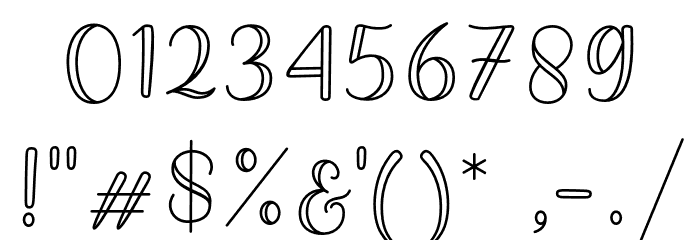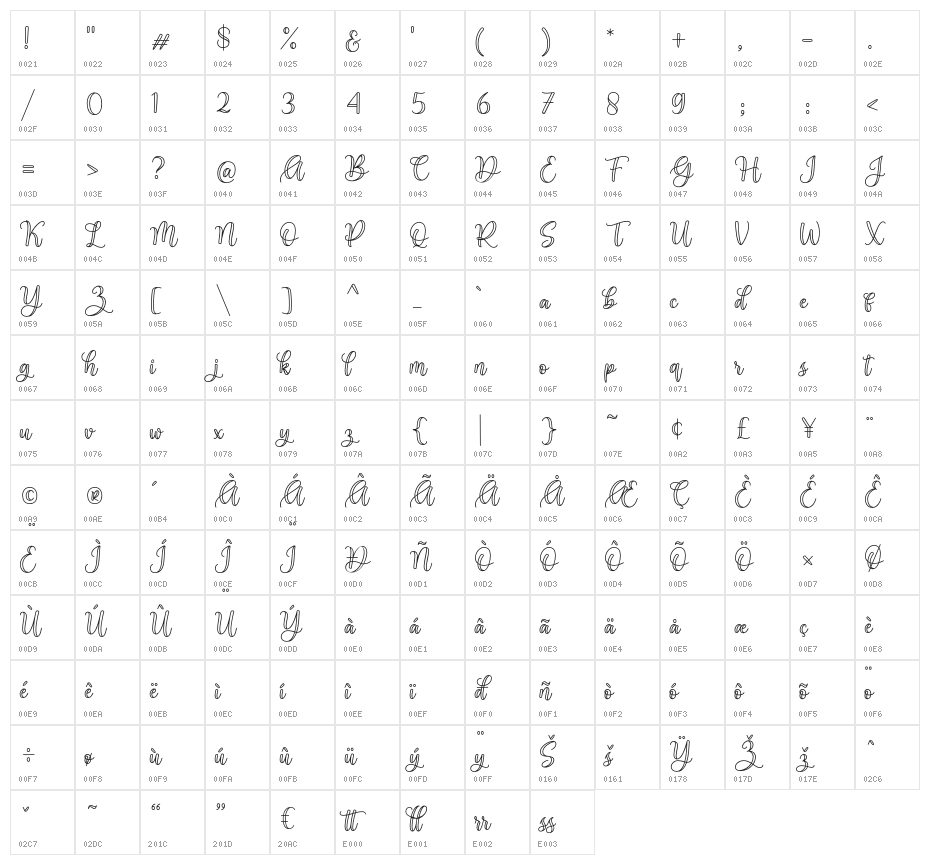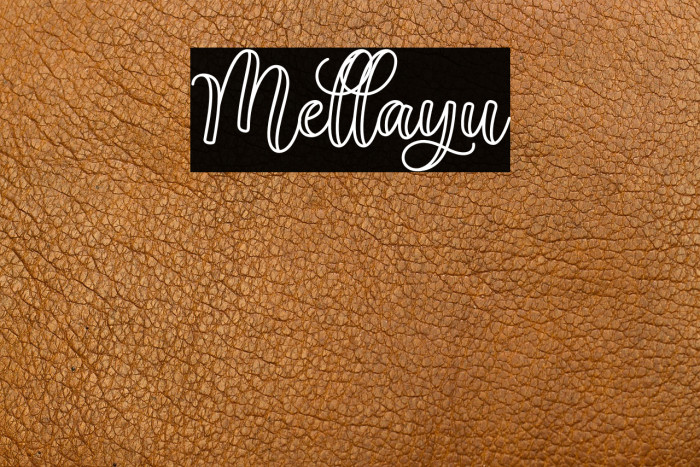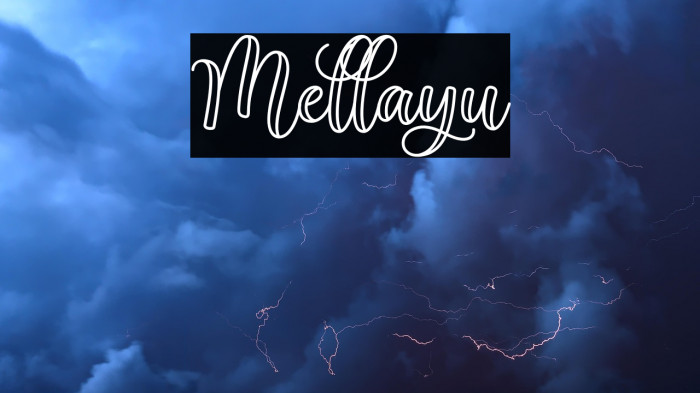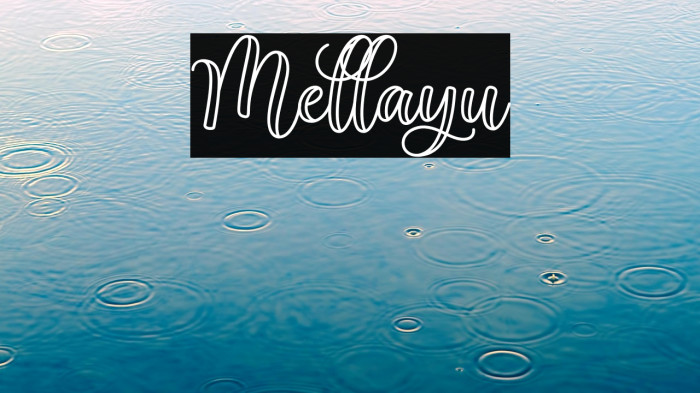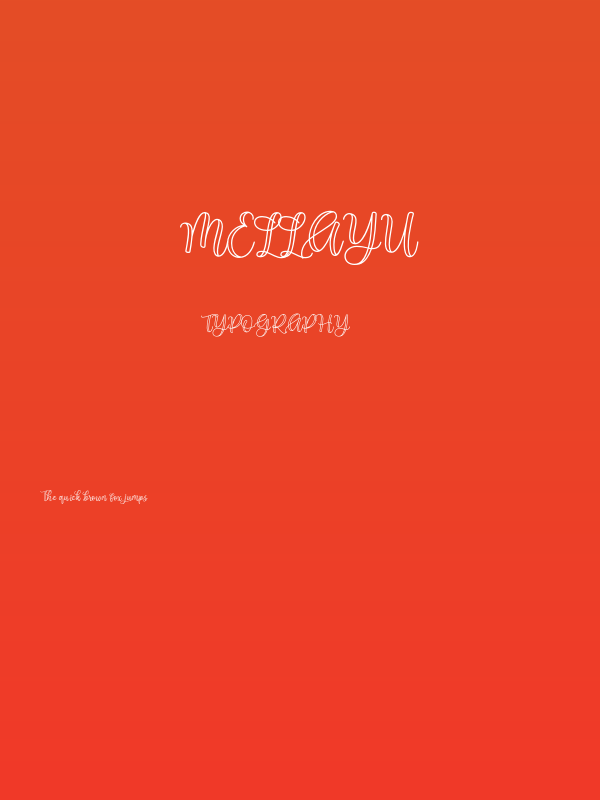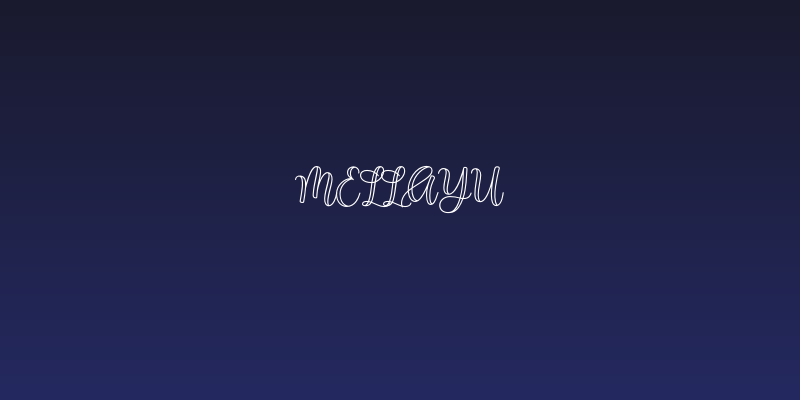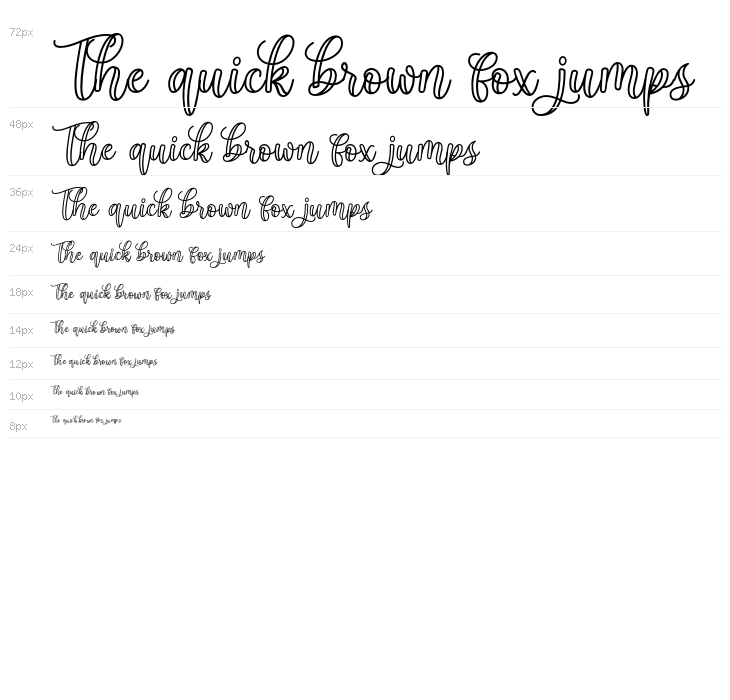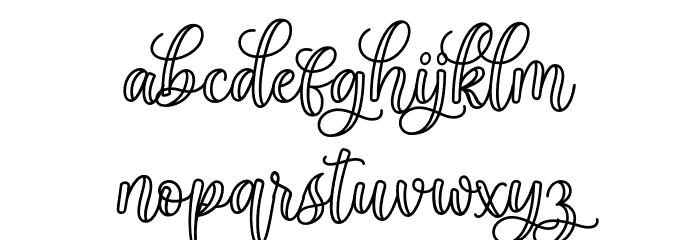
Mellayu Font
Mellayu Description
This font features an elegant and flowing script style, characterized by its smooth, interconnected strokes that create a sense of fluidity and grace. The uppercase letters are ornate, with loops and swirls that add a decorative touch, while the lowercase letters maintain a consistent style with slightly less embellishment. The numerals are clear and legible, with a slight slant that complements the overall script aesthetic. Special characters are designed to match the flowing nature of the letters, ensuring a cohesive look across all text elements. This font exudes a sense of sophistication and charm, making it ideal for projects that require a touch of elegance.